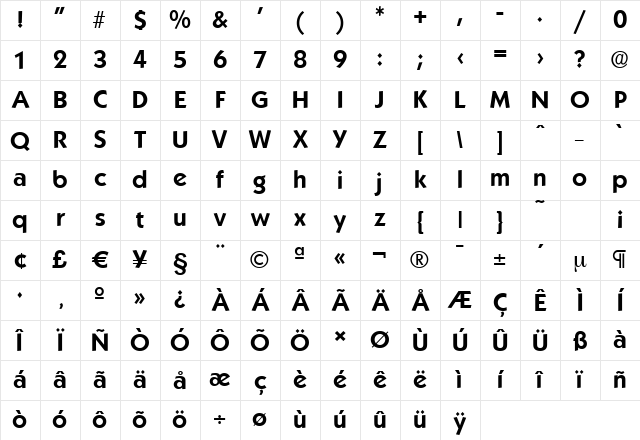
Complete KoblenzSerial Bold glyph index. Displaying only characters natively supported by KoblenzSerial Bold font.
KoblenzSerial is a composed and adaptable typeface that performs quietly and consistently across a wide range of design contexts. Its bold stroke weight gives it real presence on the page.
Pro Tip: Use KoblenzSerial in both headline and body roles to test its range before committing to a single application.